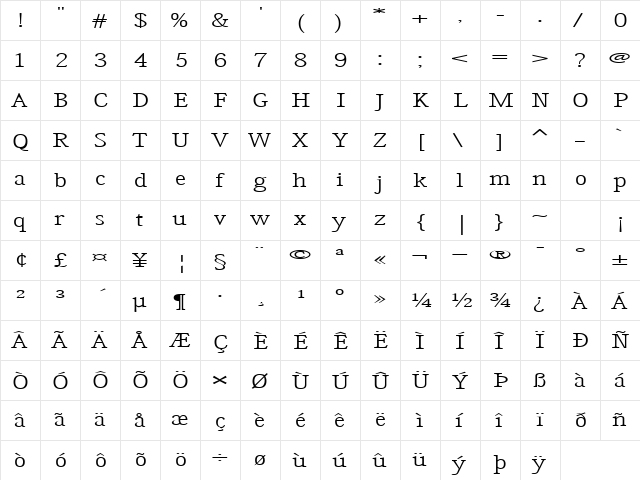
GoodName74 Regular
Design Context for GoodName74 Typeface
GoodName74 is a composed and adaptable typeface that performs quietly and consistently across a wide range of design contexts.